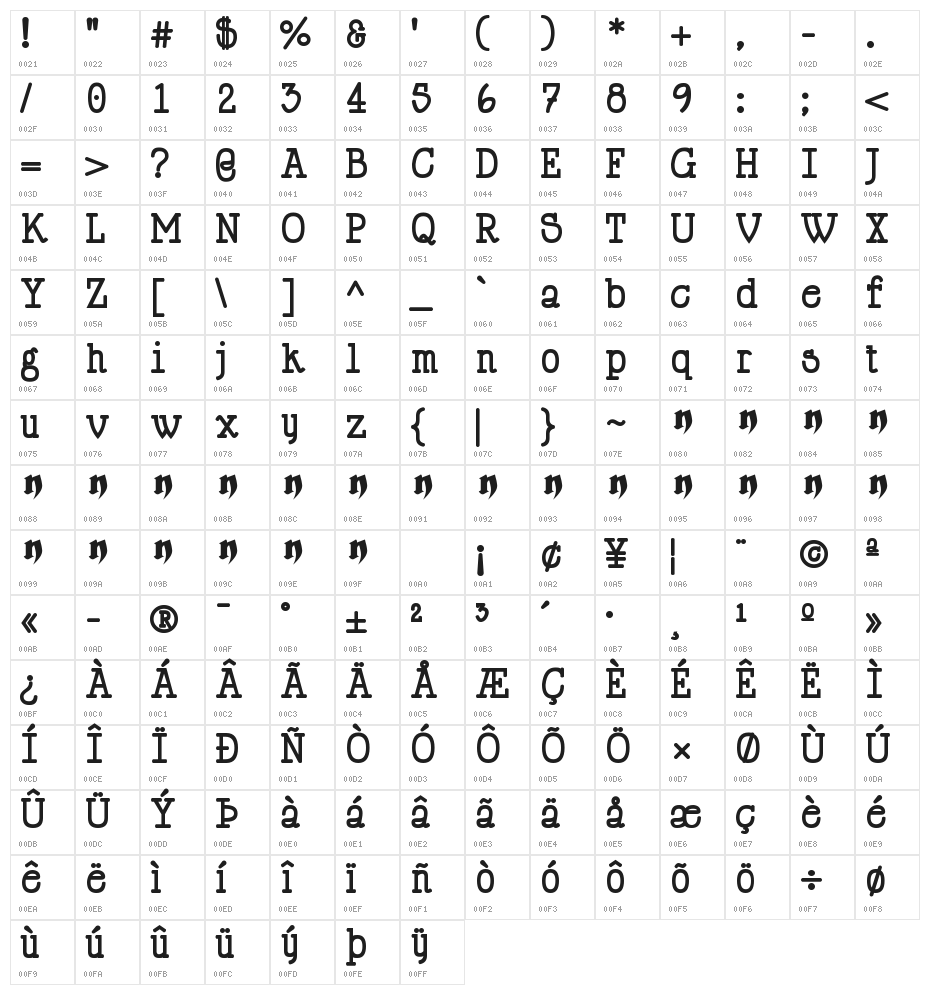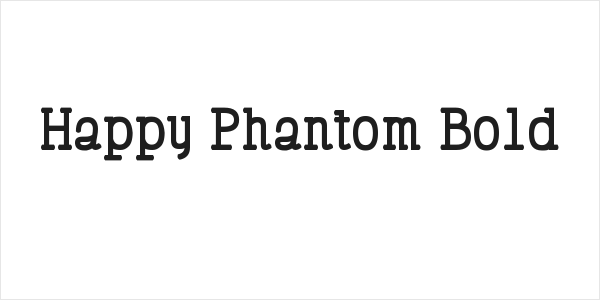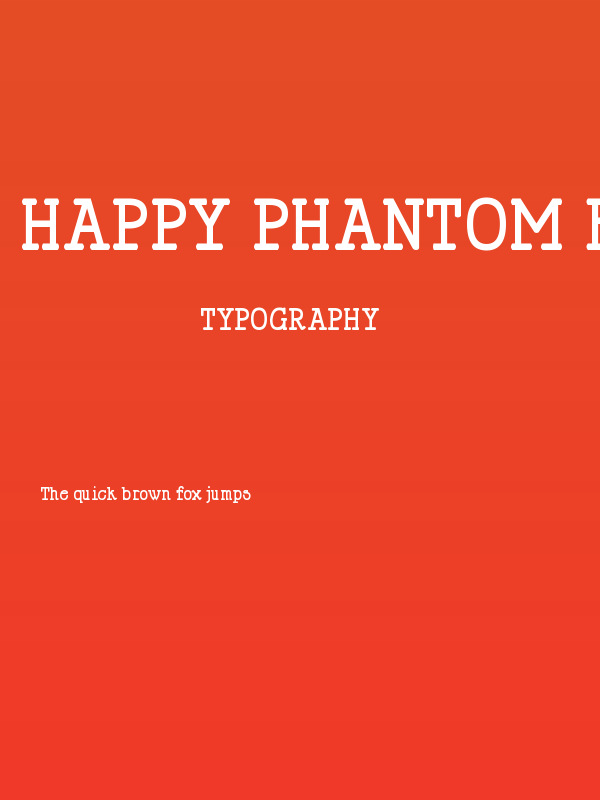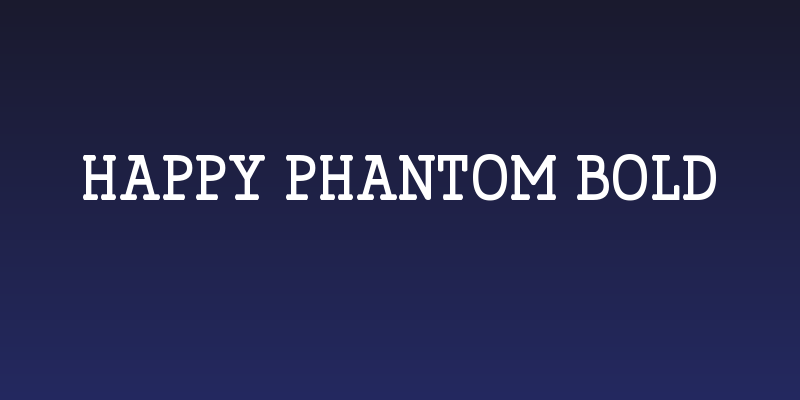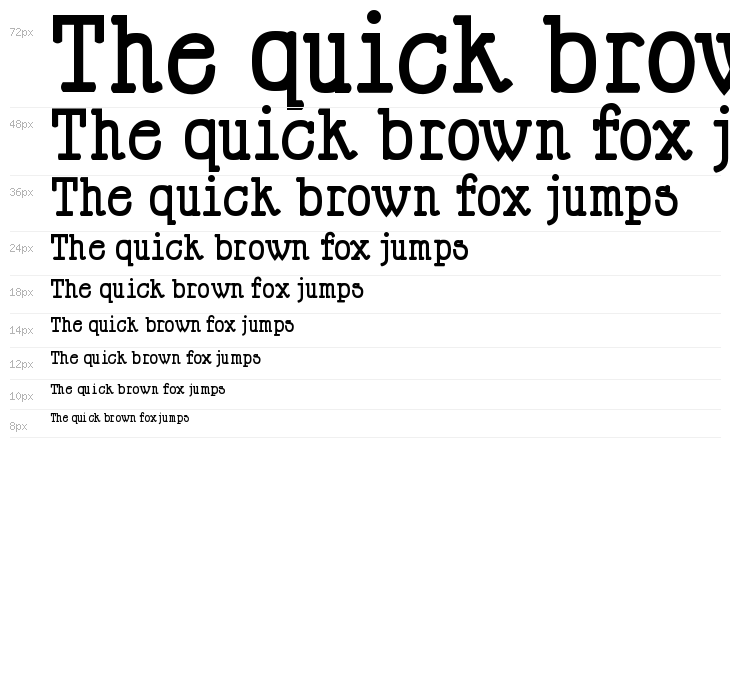
Happy Phantom Bold Font
Happy Phantom Bold Description
This font exhibits a bold and robust character with a strong presence. It features thick strokes and rounded serifs, giving it a classic yet modern appeal. The uppercase letters are uniform in height, while the lowercase letters maintain a consistent baseline with slight variations in ascenders and descenders. The numerals are clear and easily distinguishable, and the special characters are well-integrated, maintaining the overall aesthetic. The font's design is both functional and decorative, making it versatile for various applications.
| Proposed Projects | Ideal for headlines, posters, branding materials, and any design requiring a bold statement. |